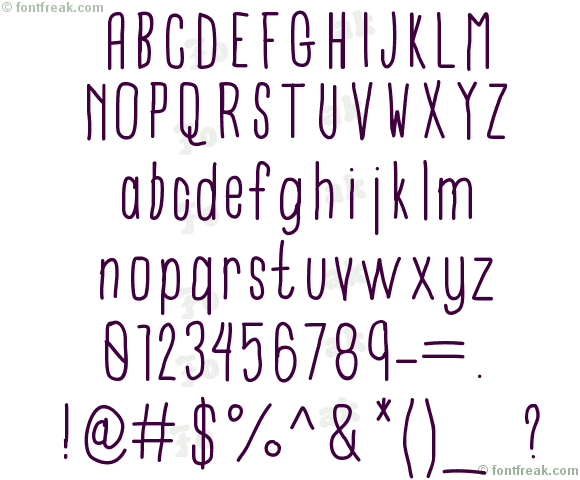
University
About University
The University font by Luedecke Design Font Co. is a charming handwritten typeface that captures the essence of personal touch and creativity. This font stands out with its unique stroke weight and playful character forms, offering a delightful visual experience. The subtle contrast in the letterforms, combined with a slightly irregular baseline, gives it an organic feel perfect for various design applications. The spacing is well-balanced, making it easy to read while still maintaining a casual, inviting tone.
Best suited for creative projects, the University font shines in contexts such as wedding invitations, where its friendly, handwritten style adds a personal touch. It's also great for crafting eye-catching movie posters that require a unique flair, as well as restaurant menus that aim to convey warmth and approachability. Additionally, small business branding materials can benefit from this font, helping convey a sense of authenticity and character that resonates with customers. Graphic designers and content creators will find it a valuable tool for enhancing their projects, as its versatility allows for a range of applications.
The target audience for the University font includes graphic designers looking to elevate their work with a touch of warmth and personality, as well as small business owners aiming to make their branding more relatable. Content creators can leverage this font to add a distinct voice to their visual content. Overall, the University font free download offers a refreshing alternative to more conventional typefaces, making it an excellent choice for anyone seeking to infuse their designs with creativity and charm. Its unique characteristics and versatility ensure it will make a lasting impression in any project.